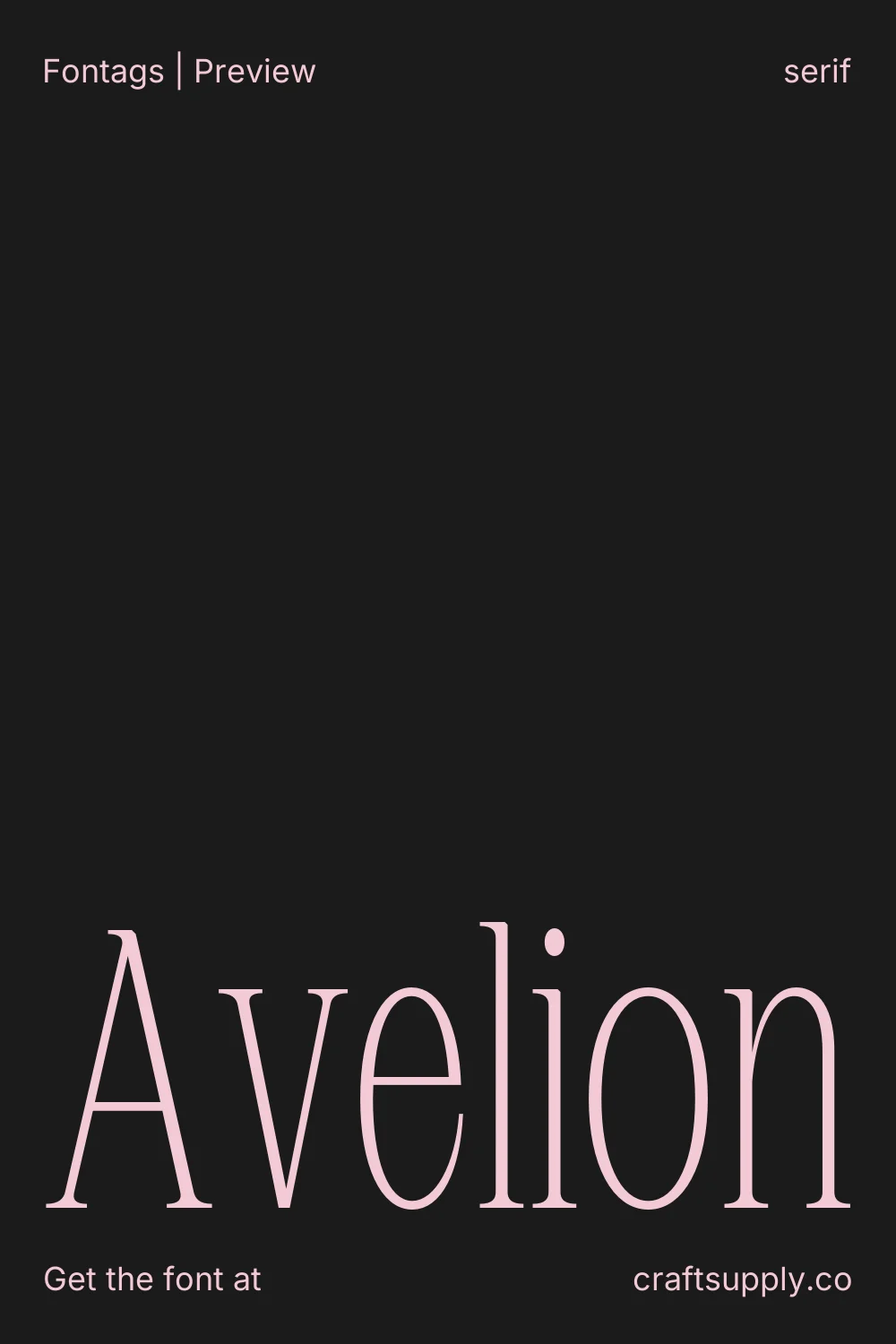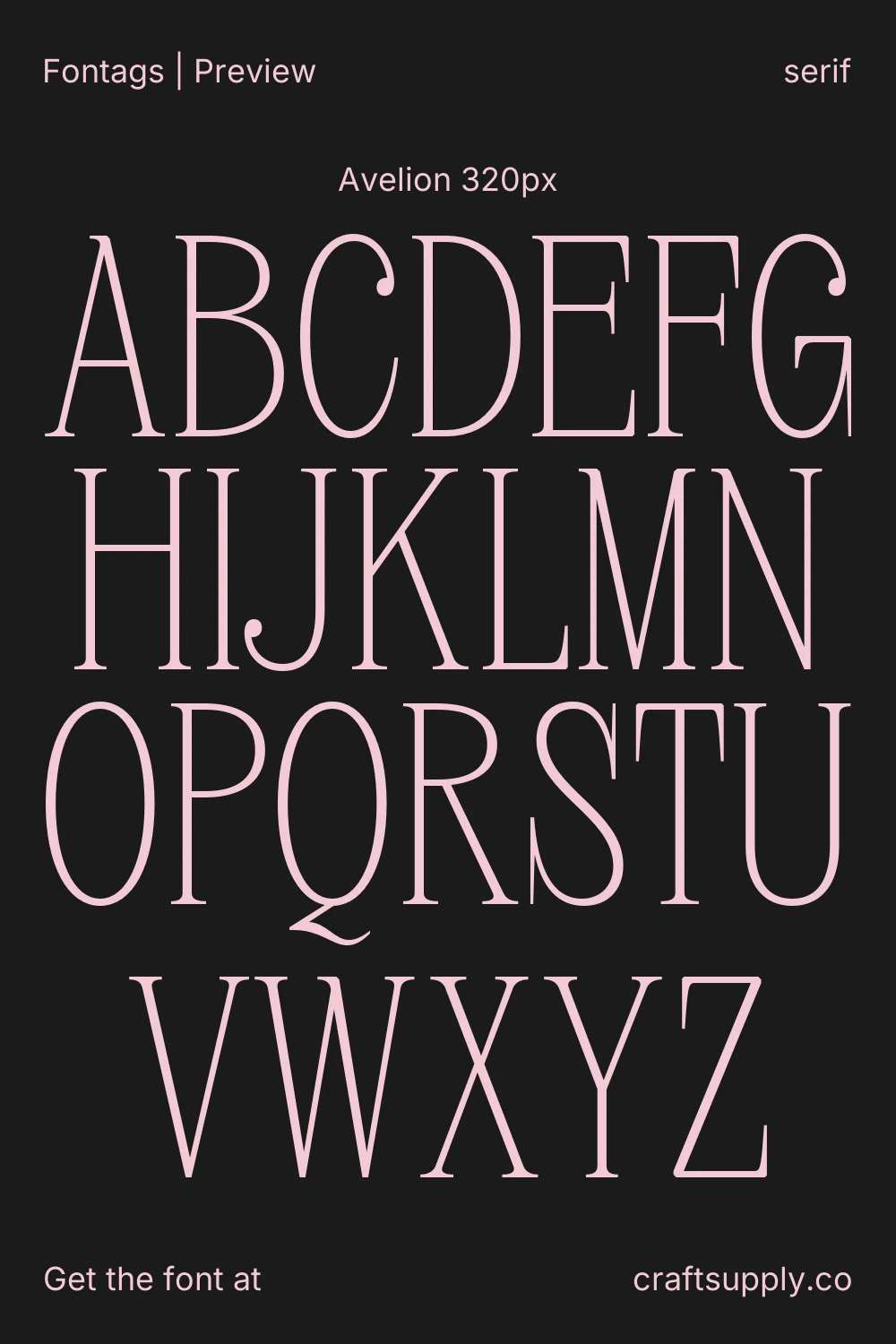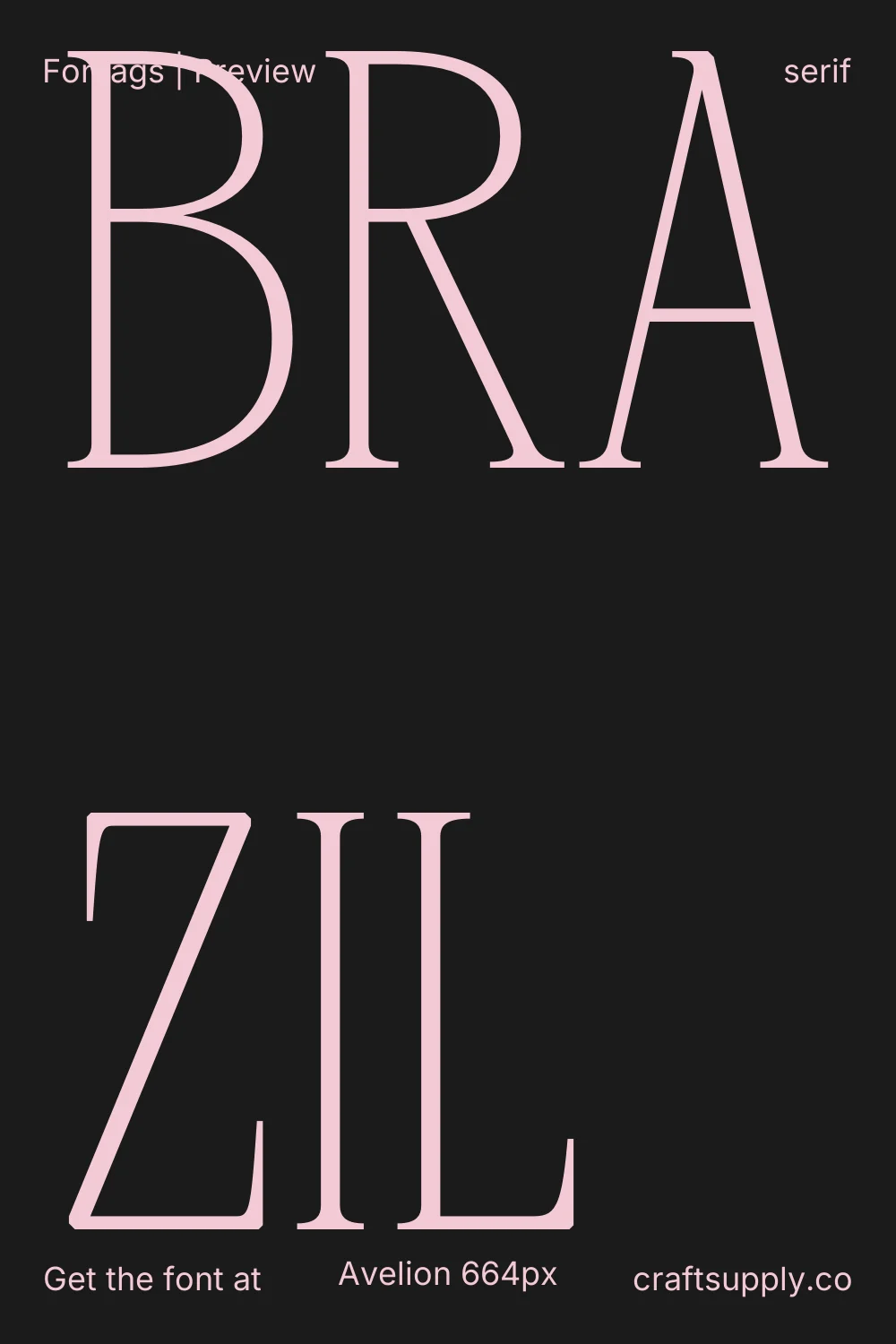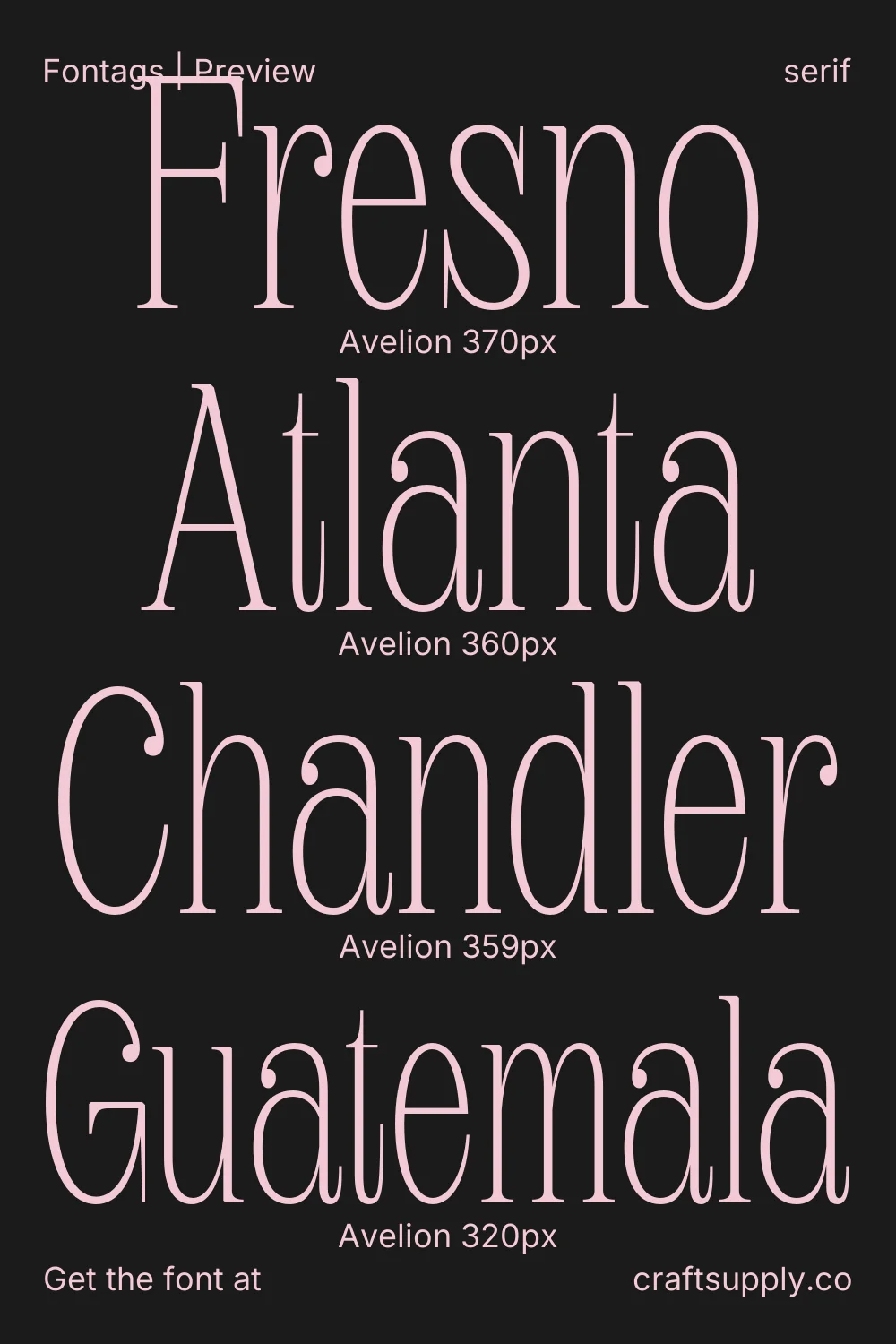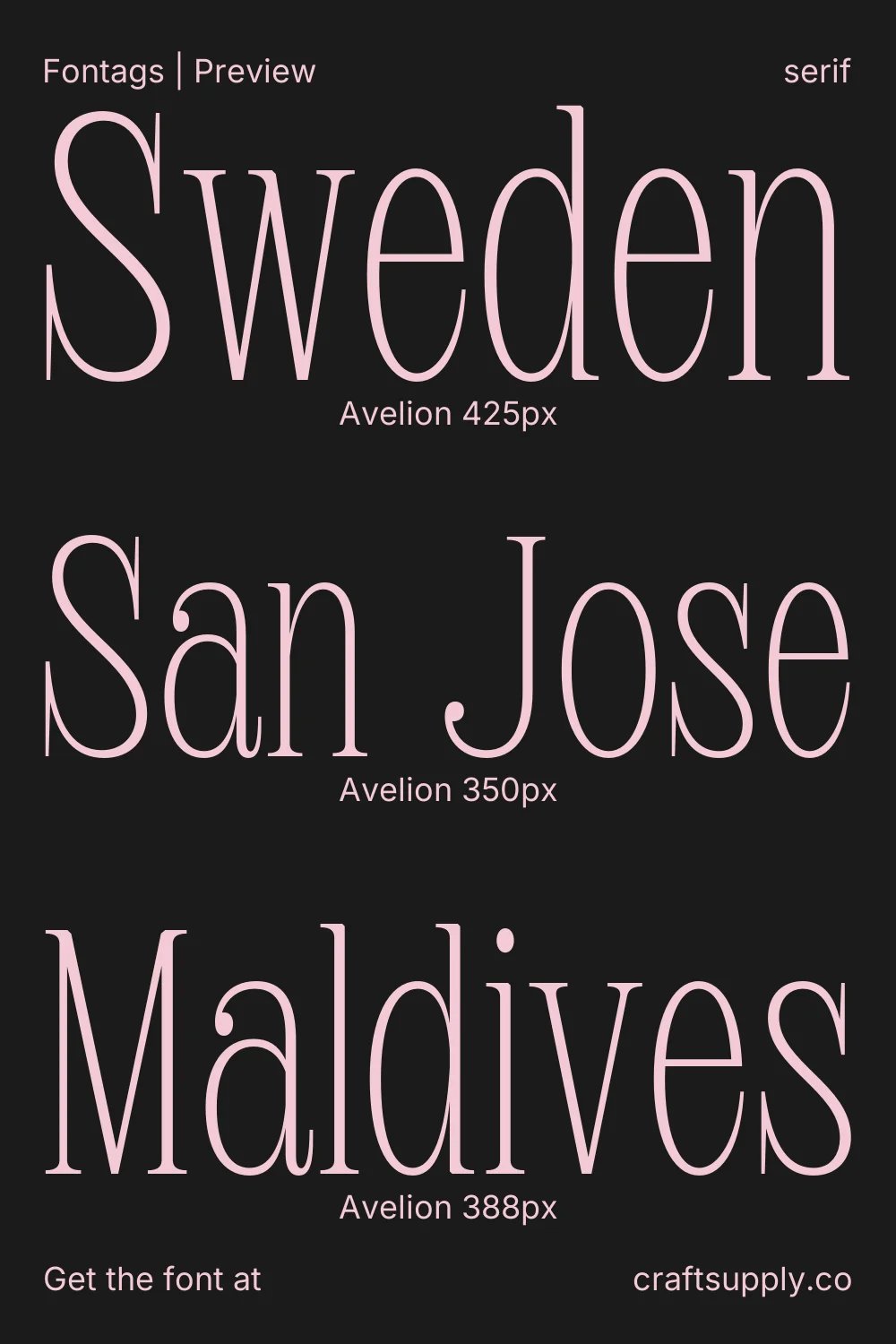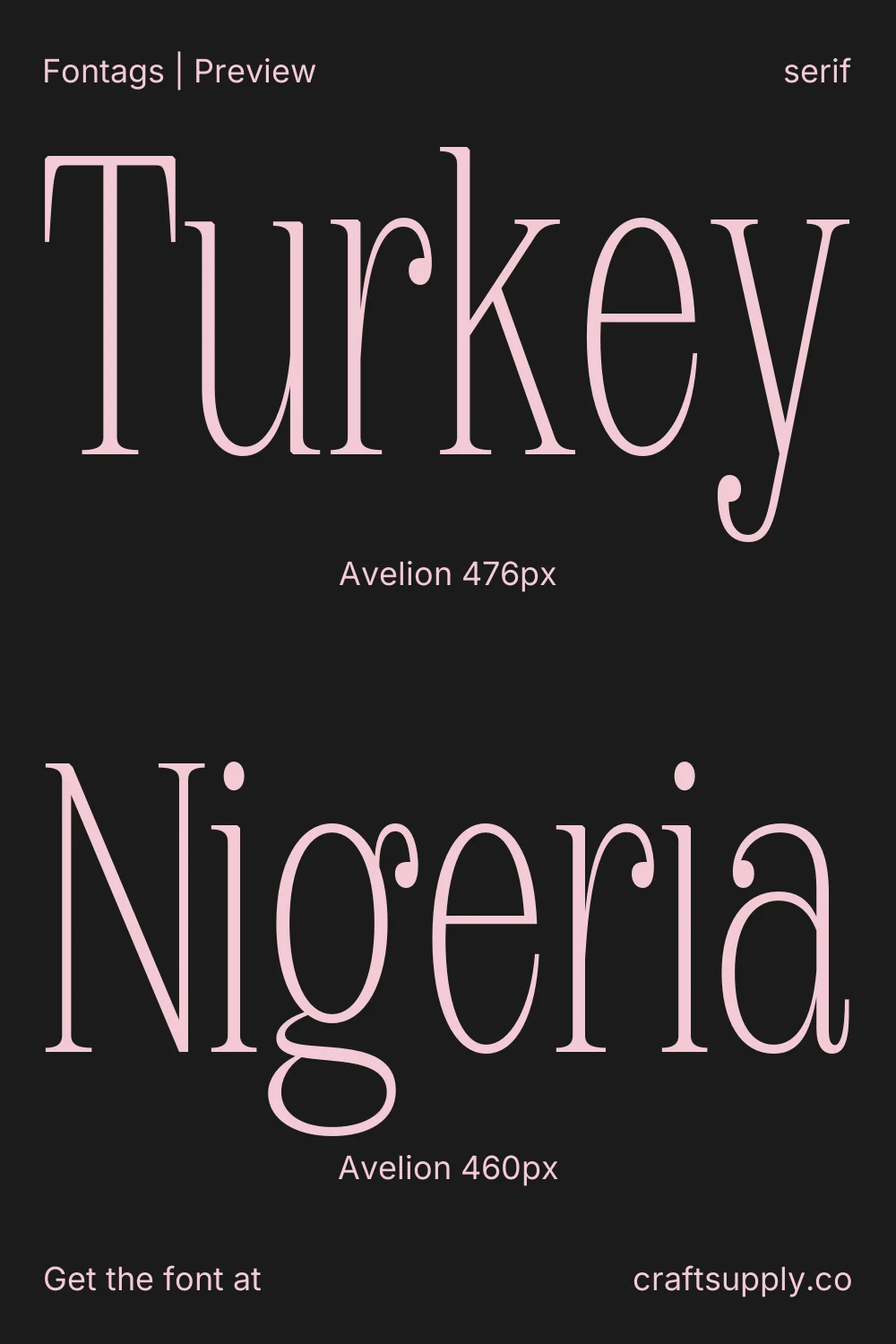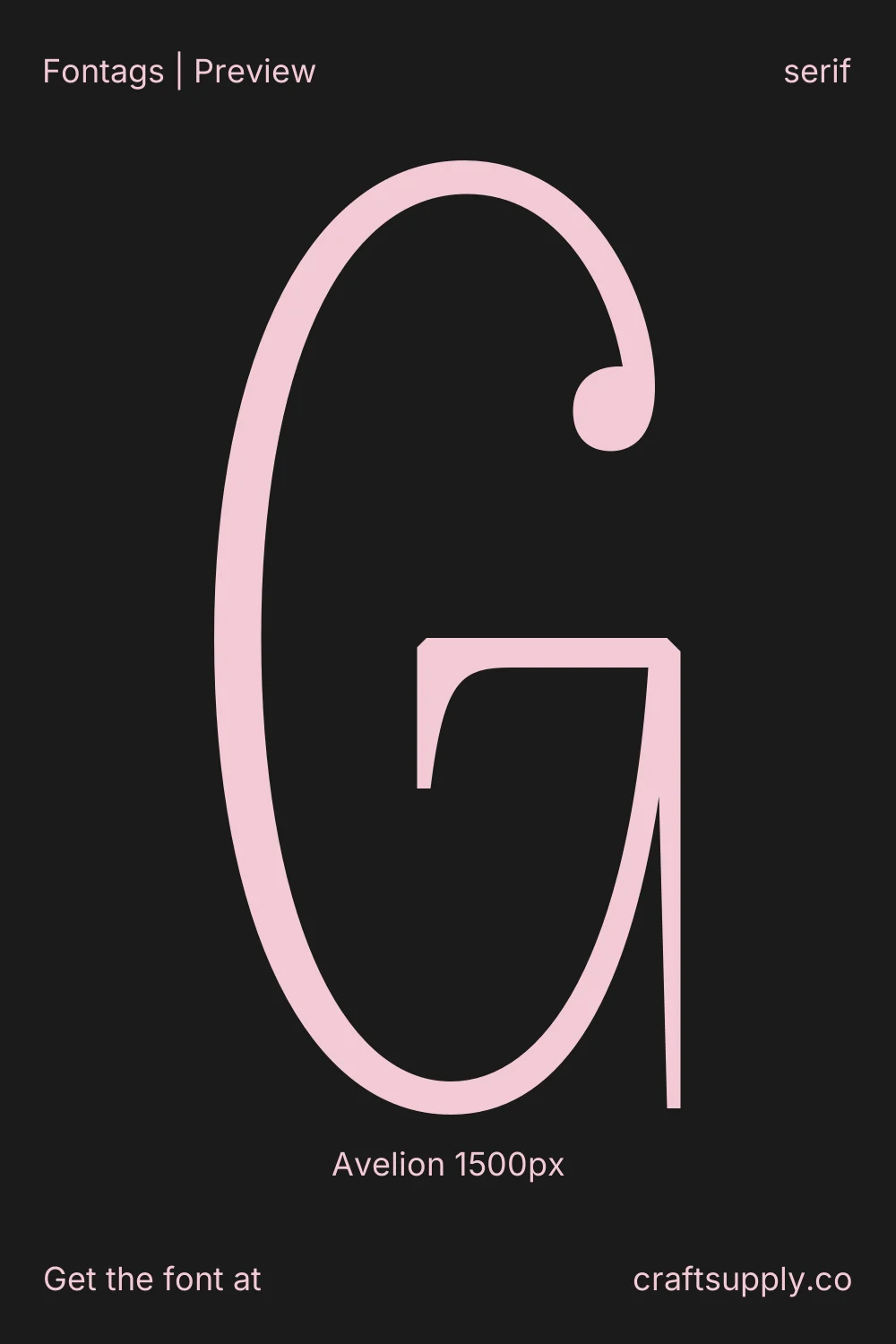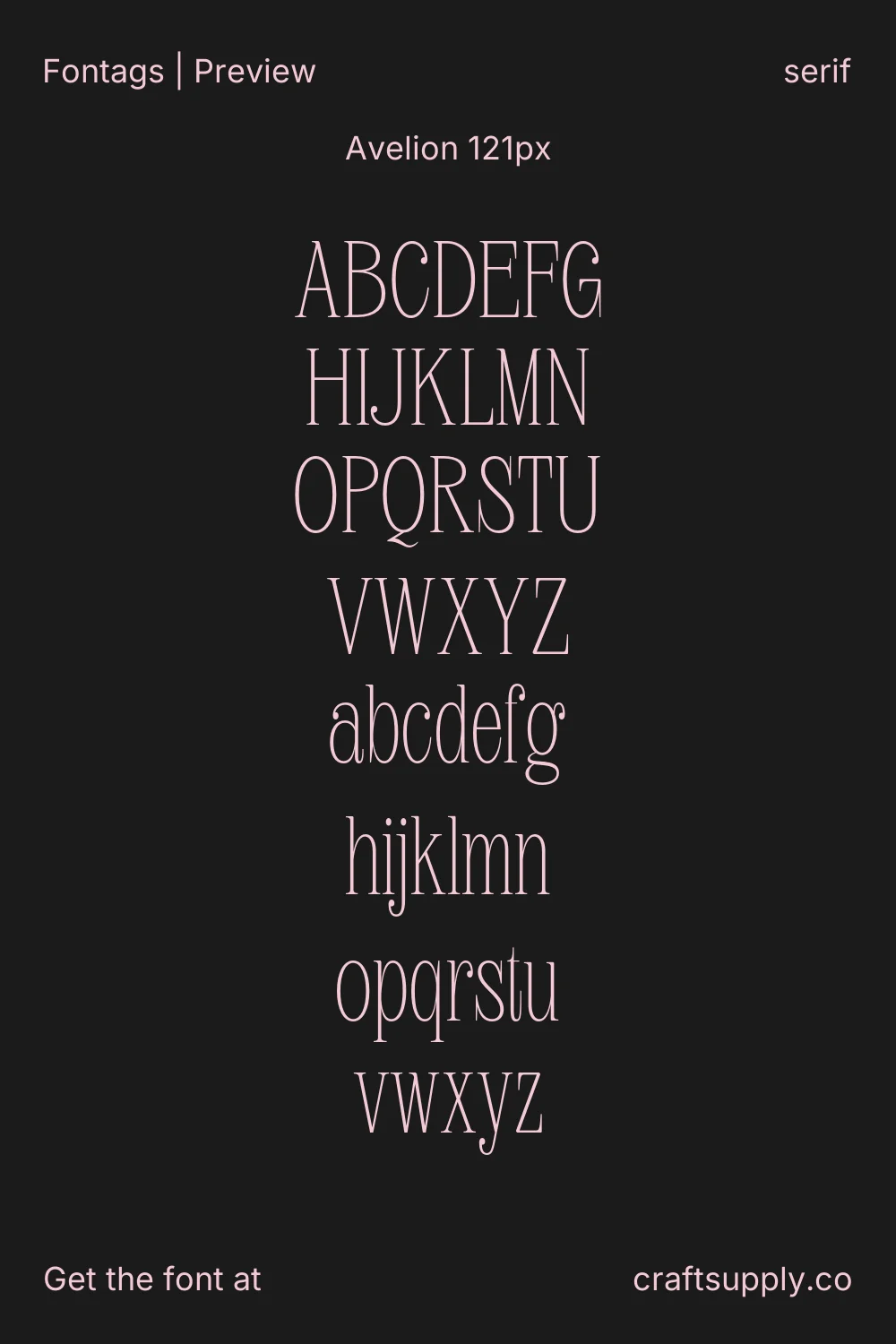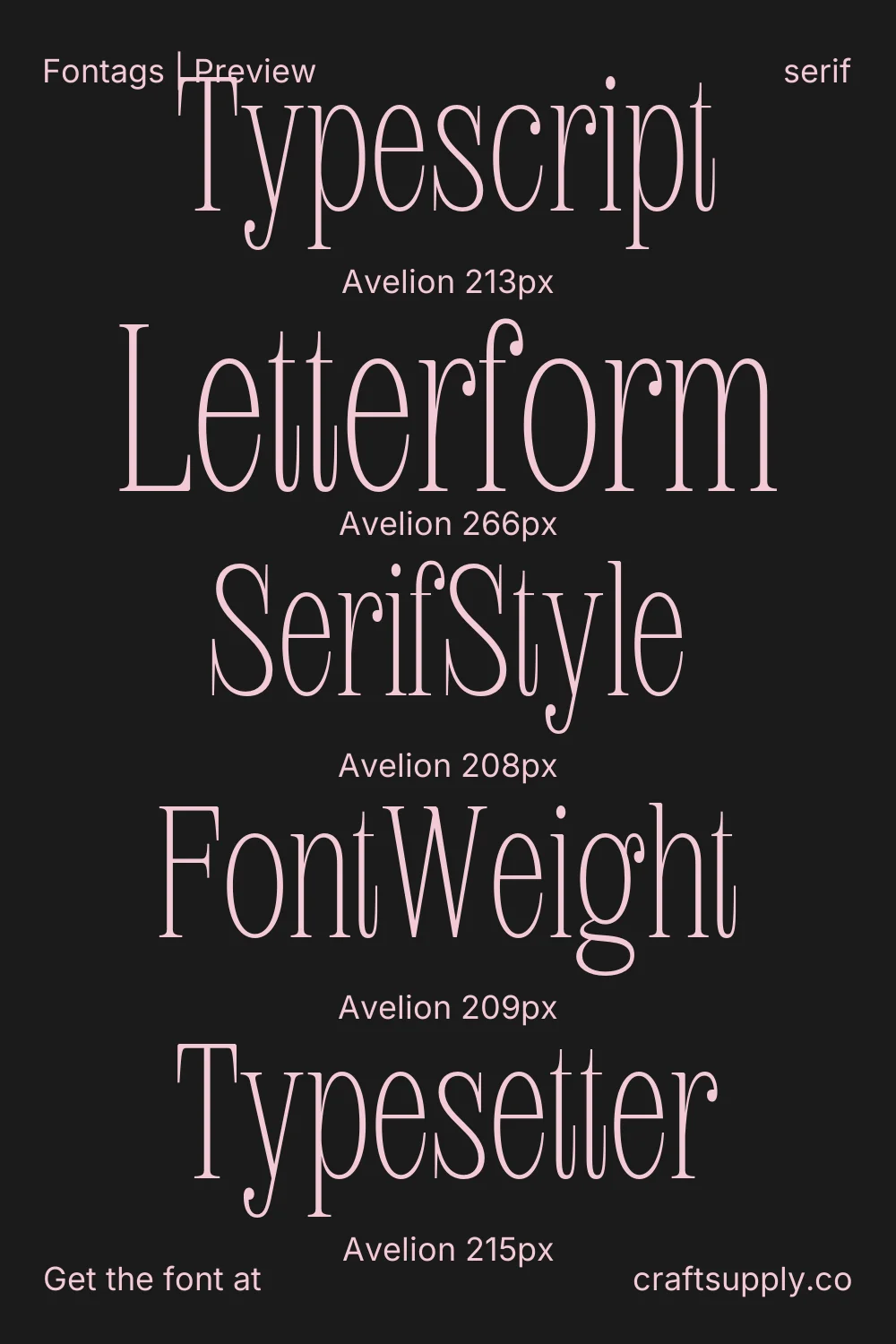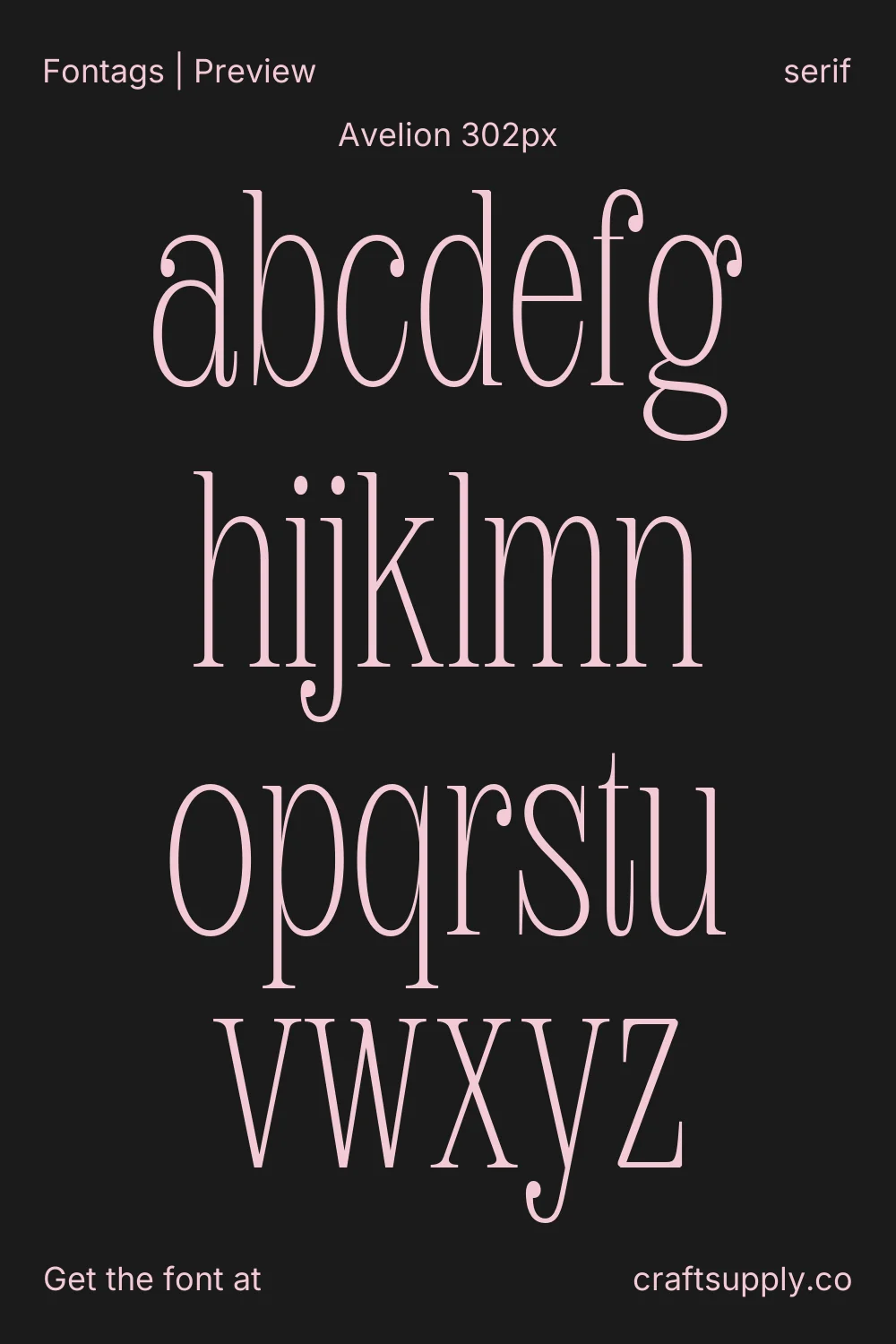
Avelion
Avelion is an elegant low-contrast serif with condensed proportions, blending delicate strokes with a compact form. Its timeless appeal and legibility make it ideal for editorial layouts, branding, and digital media, bringing harmonious sophistication to any project.